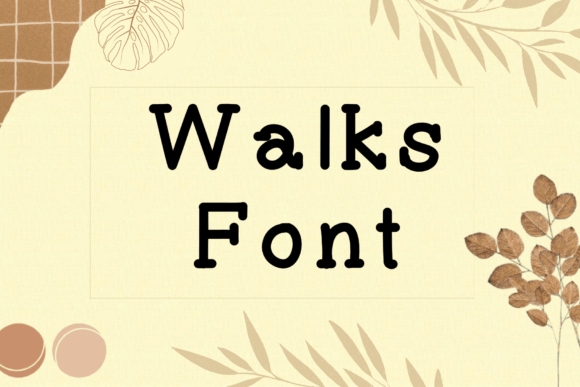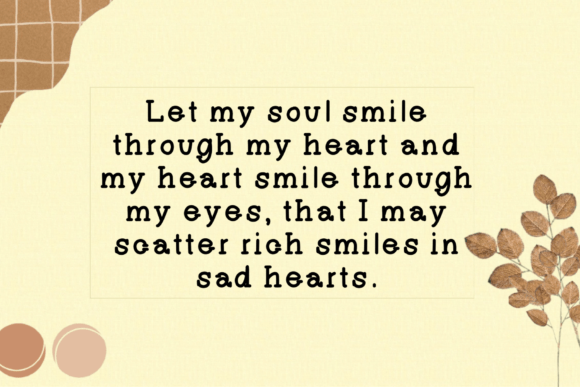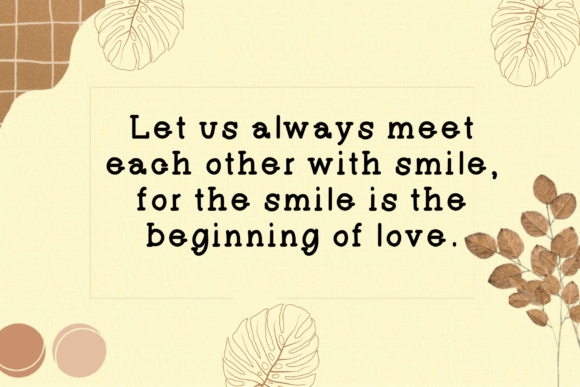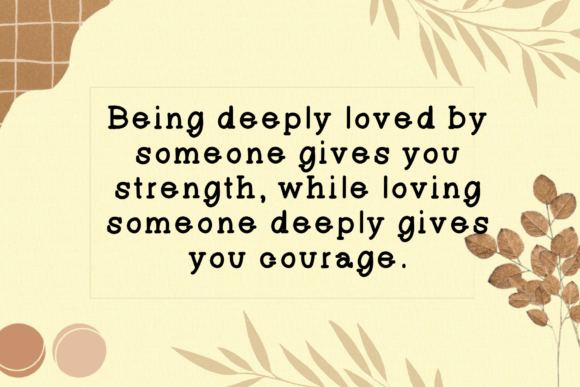
Walks Font
About Walks Font
Walks is a delightful handwritten font that adds a playful and fun touch to your creative projects. Its casual and whimsical style makes it perfect for a wide range of content, adding a unique charm to your designs. By incorporating Walks into your projects, you’ll quickly notice how it makes them stand out from the competition.
The font’s handwritten quality brings a sense of authenticity and warmth to your text, making it ideal for projects that aim to connect with the audience on a personal level. Whether you’re working on social media posts, greeting cards, posters, or any other content-driven materials, Walks infuses your designs with a lively and approachable vibe.
Walks’ playful and fun demeanor allows you to experiment with different layouts and color schemes, creating visually appealing compositions that capture attention. Its versatility enables you to use it in various contexts, from digital graphics to print materials, ensuring that your designs make a memorable impact.
Embrace the playful spirit of Walks in your creative endeavors and watch as it brings your designs to life. Whether you’re designing content for blogs, advertisements, or promotional materials, this font is sure to add a refreshing and distinctive flair to your work, making it truly stand out and resonate with your audience. Let Walks inject a sense of fun into your designs and transform them into engaging and visually appealing creations.